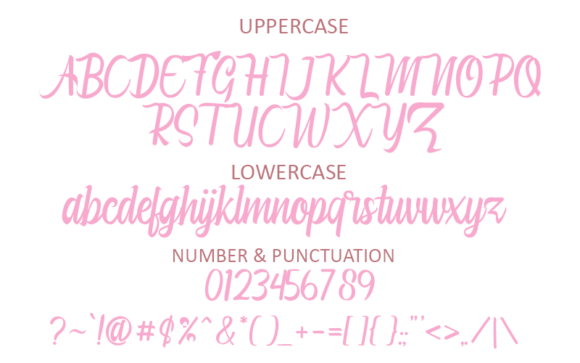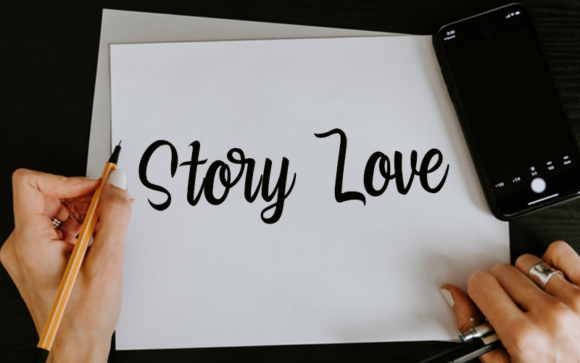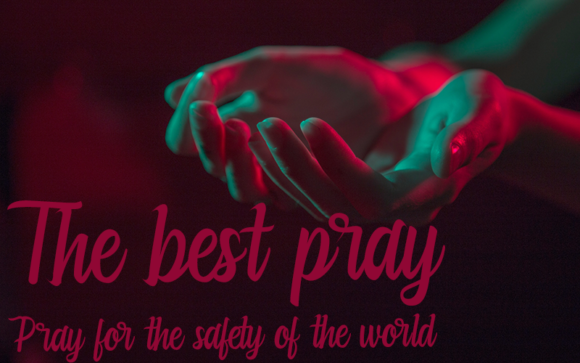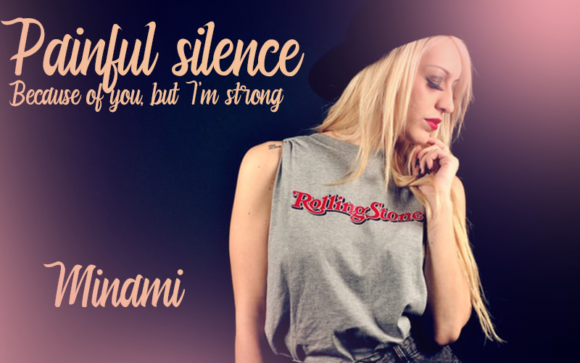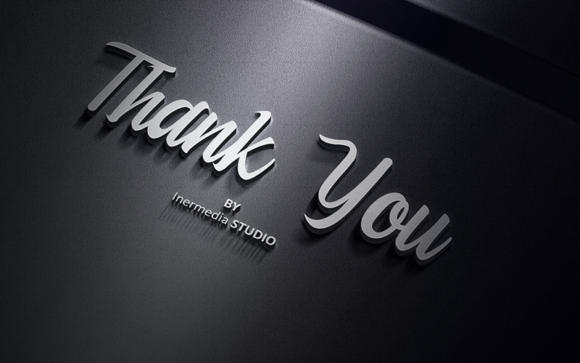
Introduction to Ghandiepa Font
Ghandiepa embodies cuteness, playfulness, and authenticity.
This enchanting handwritten font will turn any creative idea into a true standout .